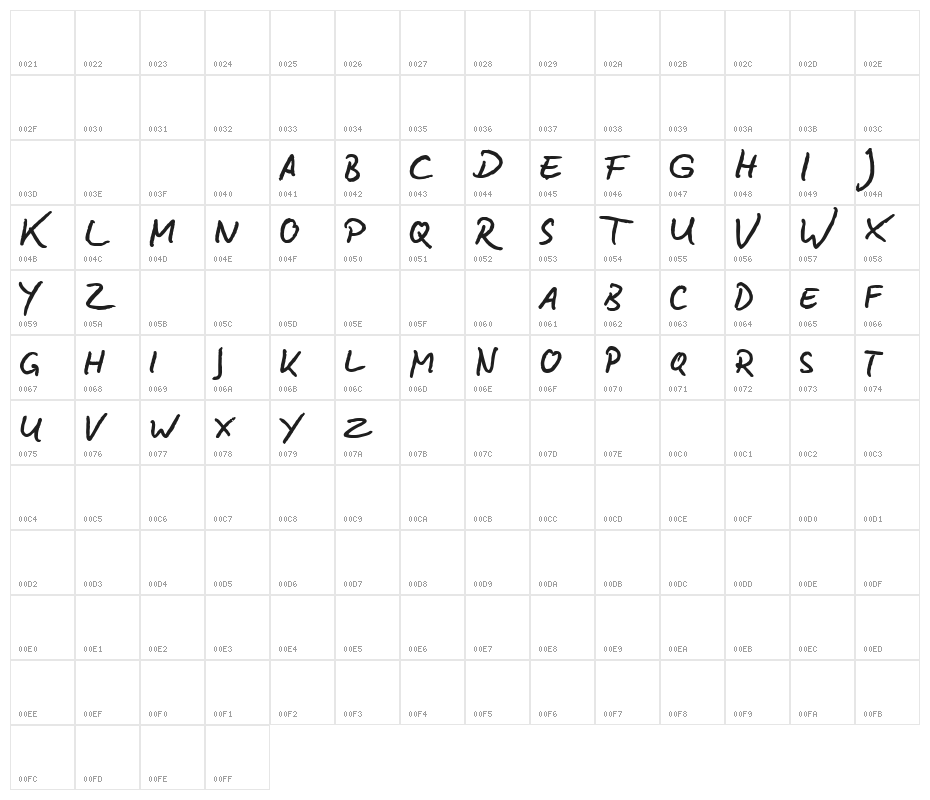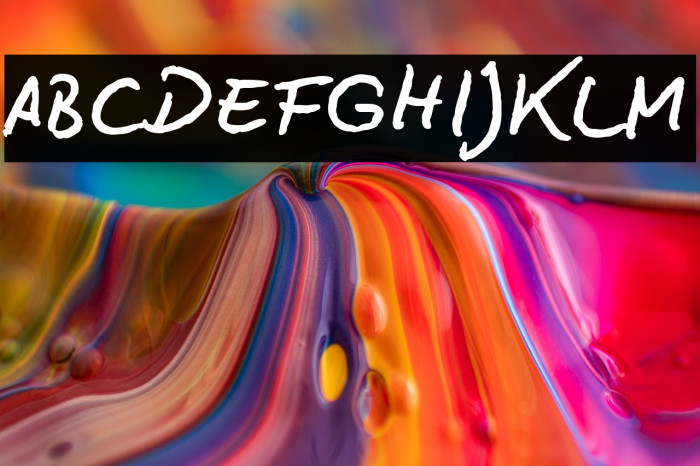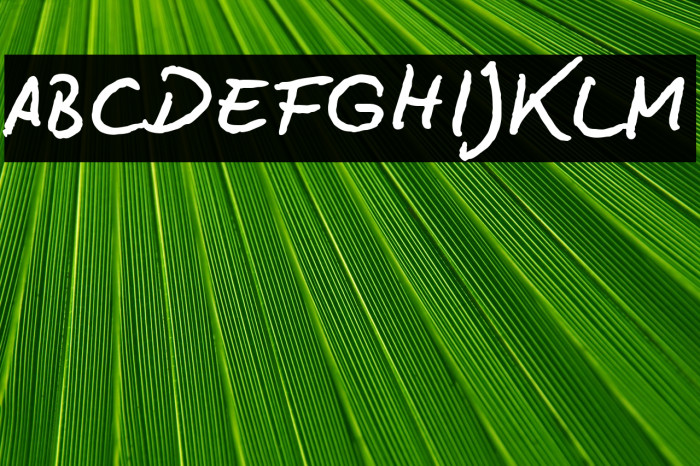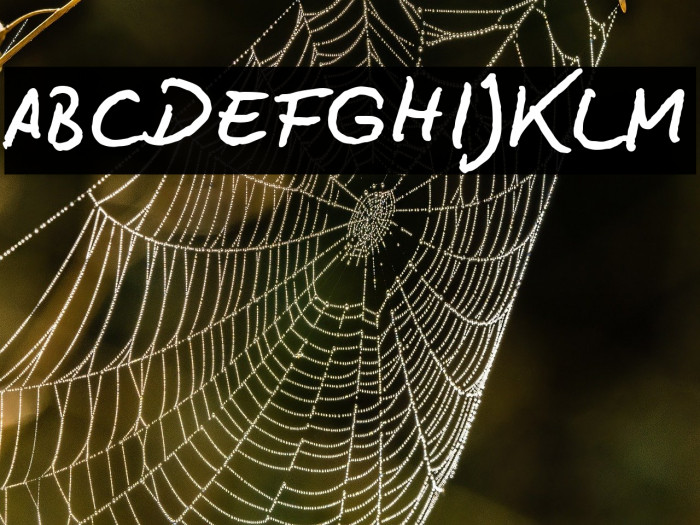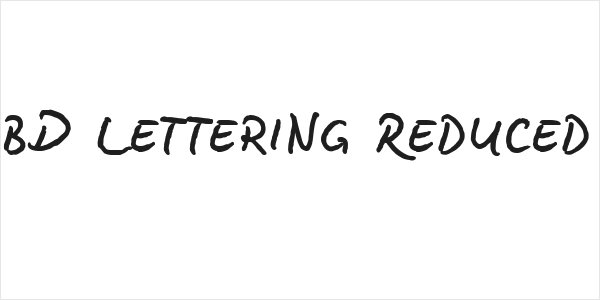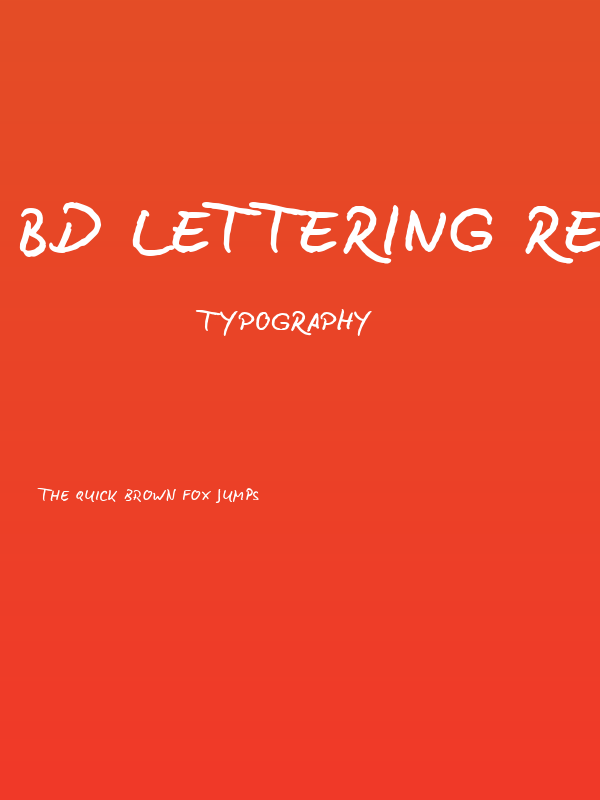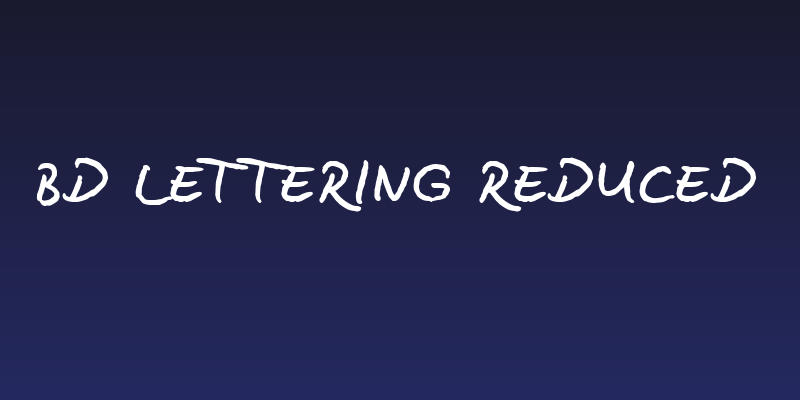
BD Lettering Reduced Font
BD Lettering Reduced Description
This font features a dynamic and energetic handwritten style, characterized by its fluid and slightly irregular strokes that mimic natural handwriting. The uppercase letters exhibit a playful yet sophisticated appearance, with varying stroke widths that add a sense of movement and personality. The lowercase letters maintain this lively aesthetic, ensuring consistency across the typeface. The overall design is informal yet legible, making it suitable for projects that require a personal touch. The font's organic flow and casual elegance make it ideal for creative applications.
| Overall Style | Casual, Energetic |
| Use Case | Logos, Invitations, Personal Branding |
| Proposed Projects | Ideal for greeting cards, invitations, personal branding, and creative projects that require a handwritten touch. |